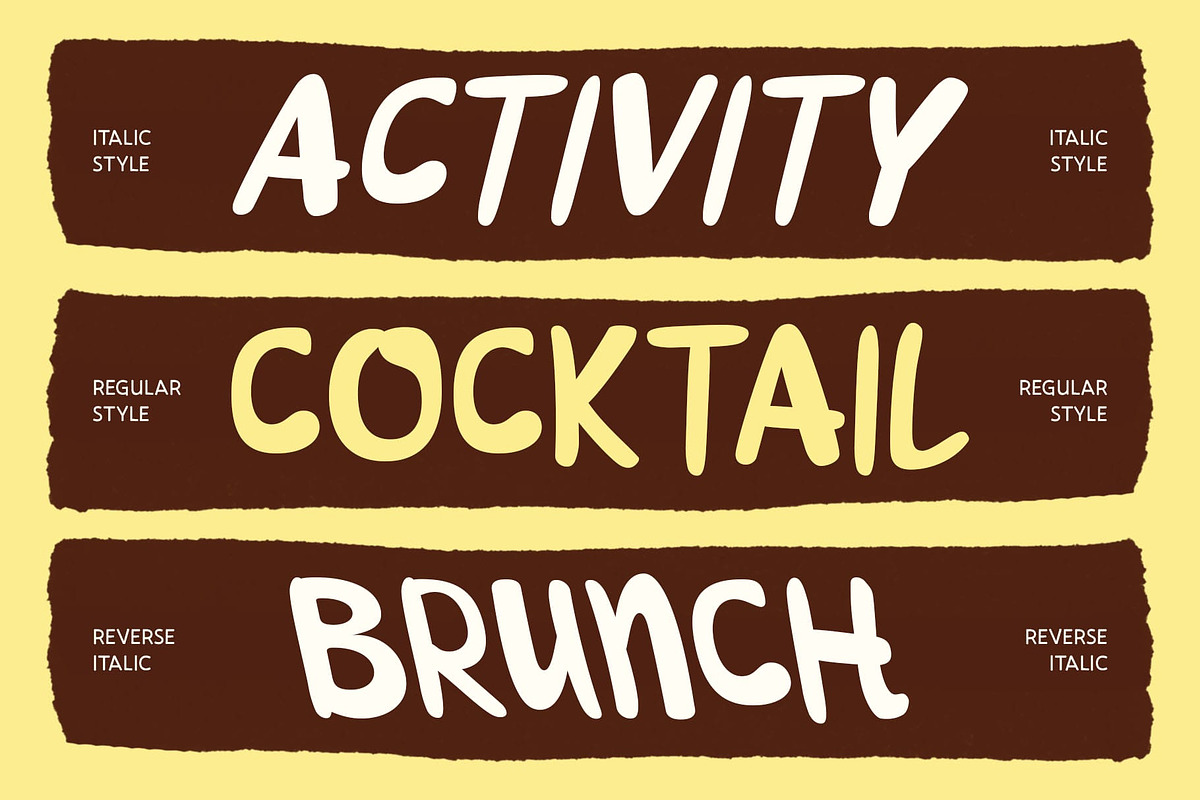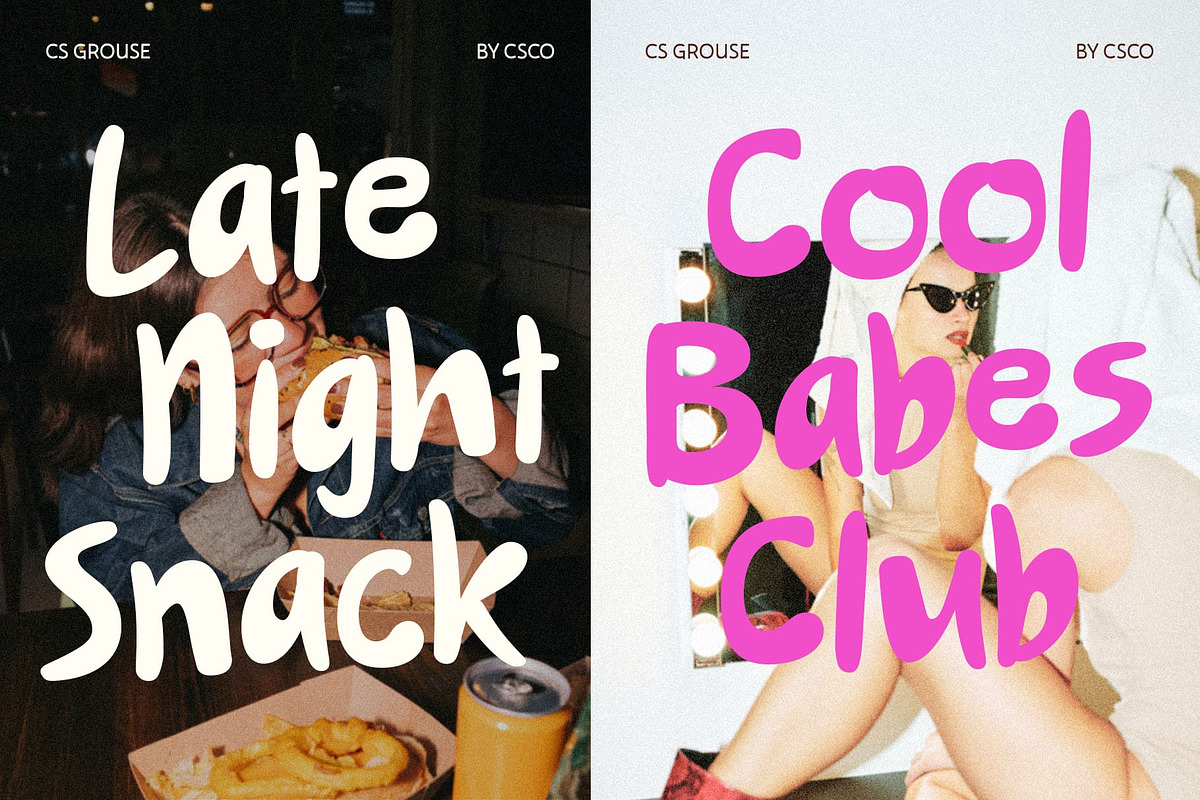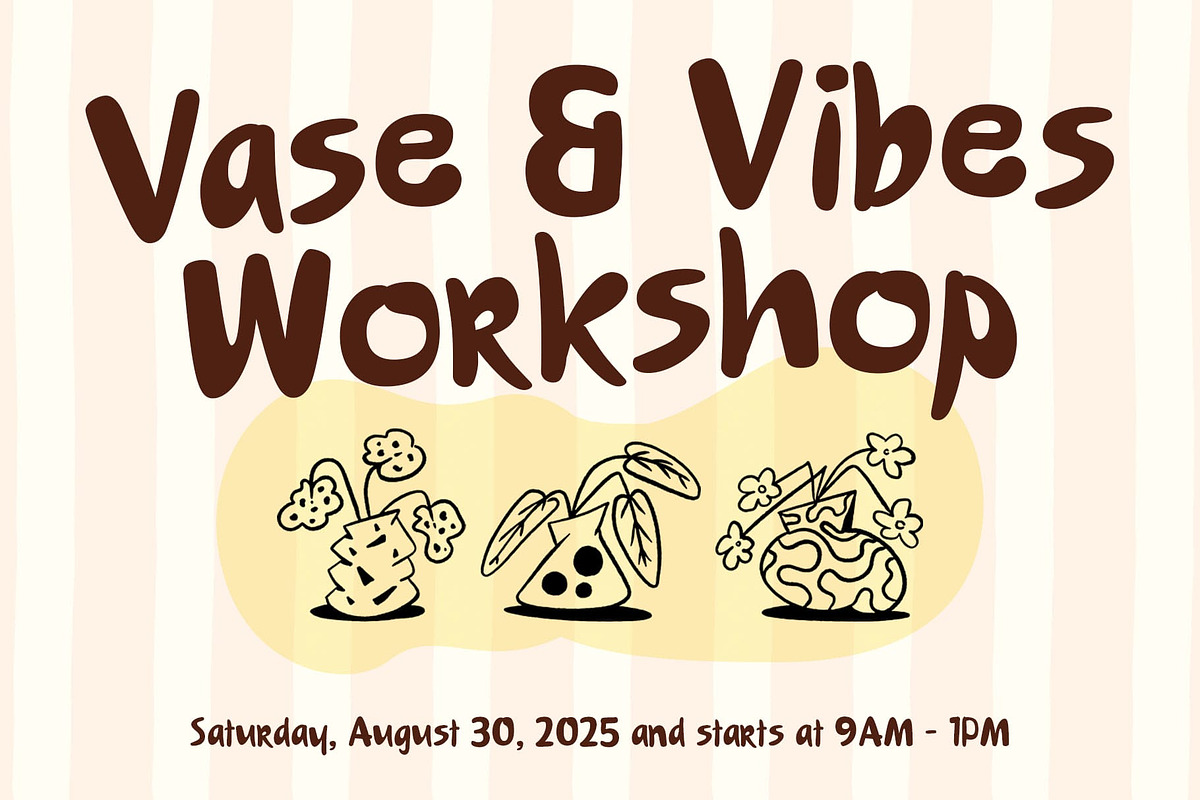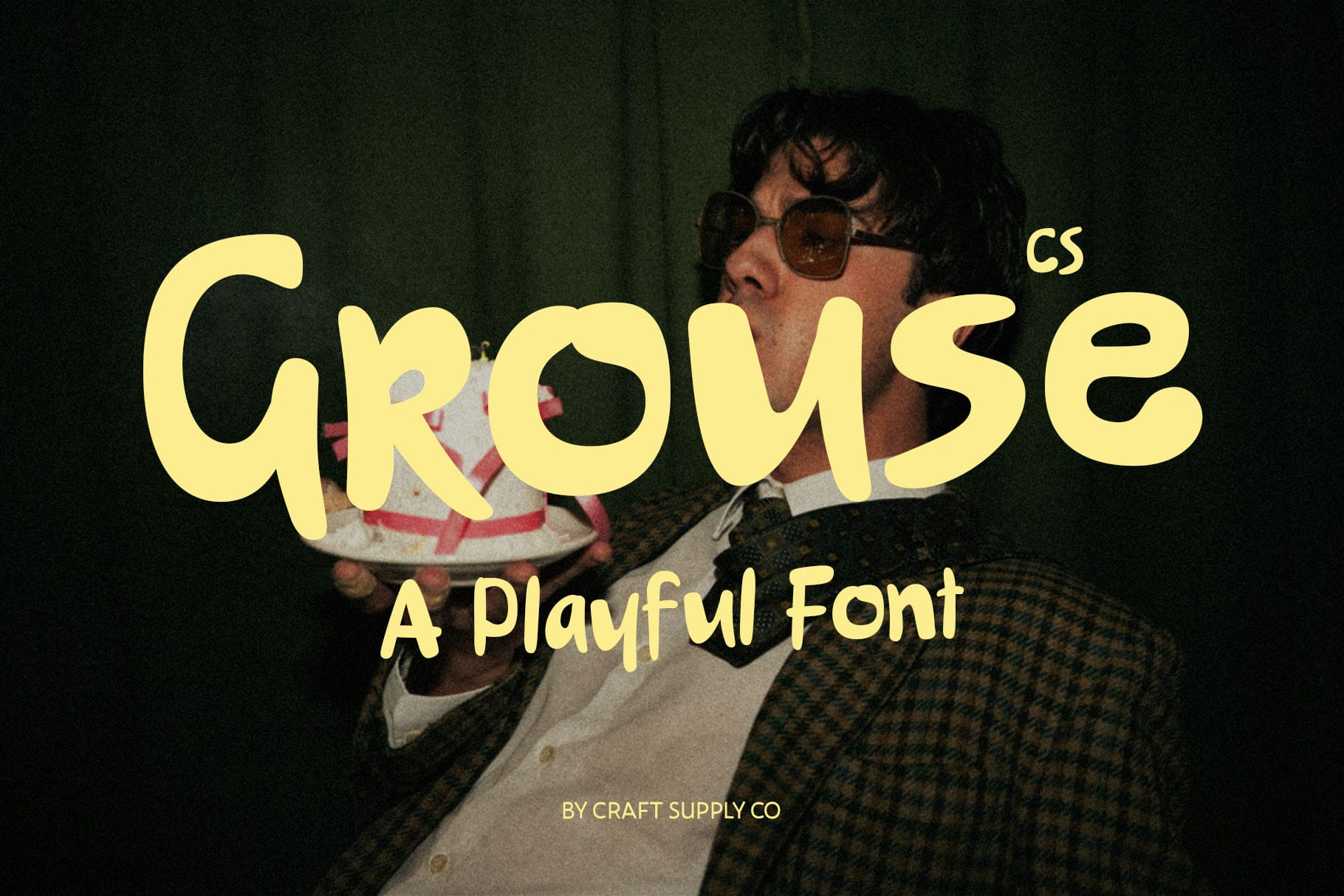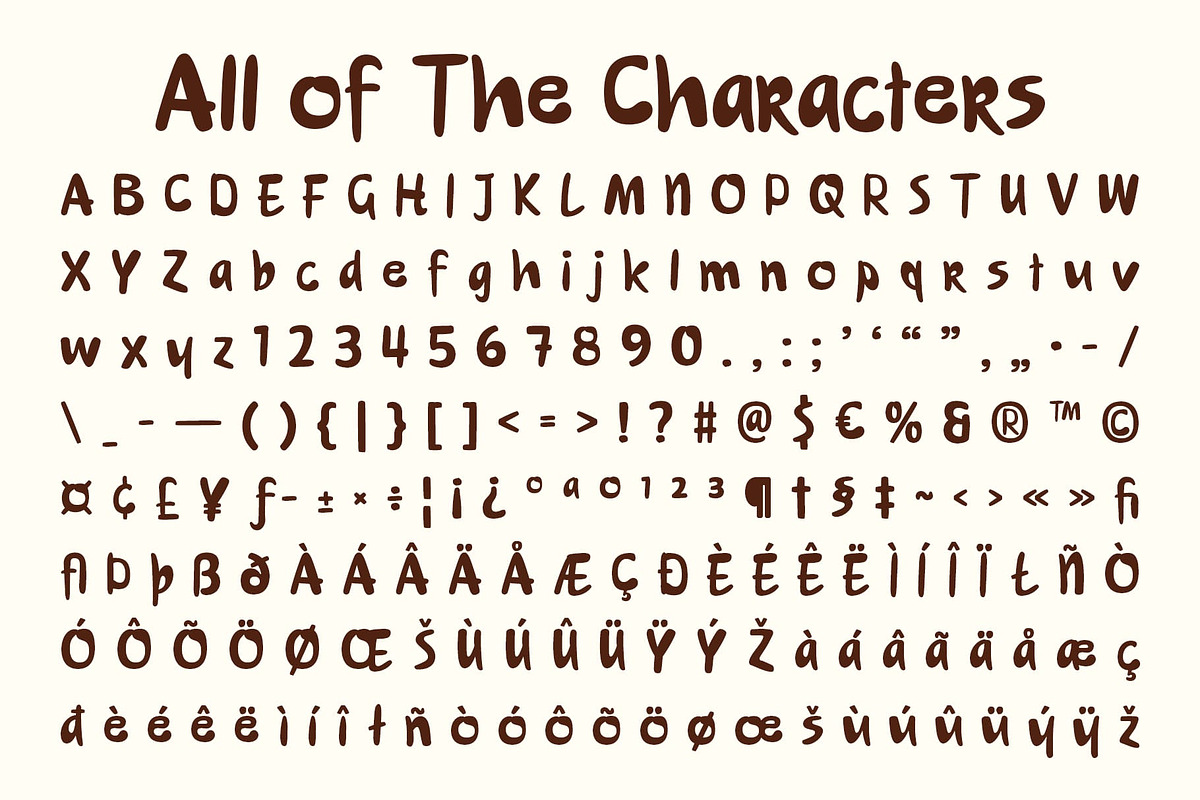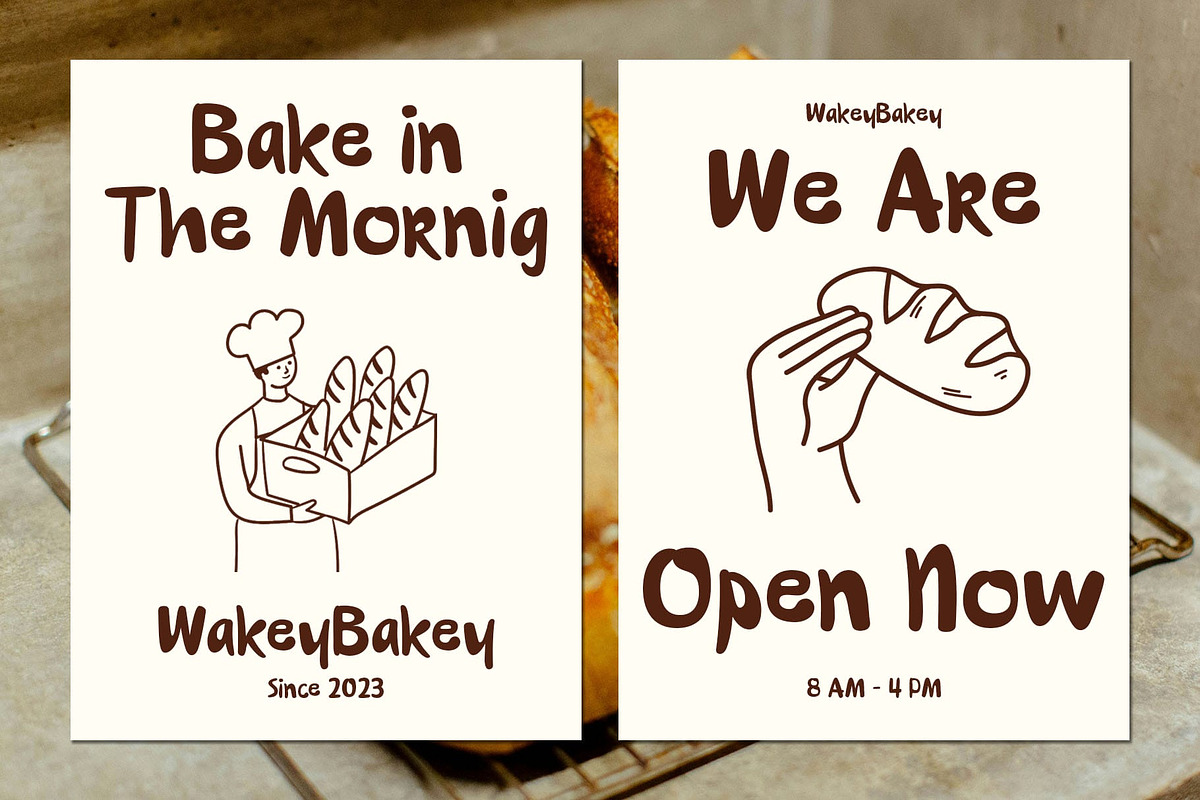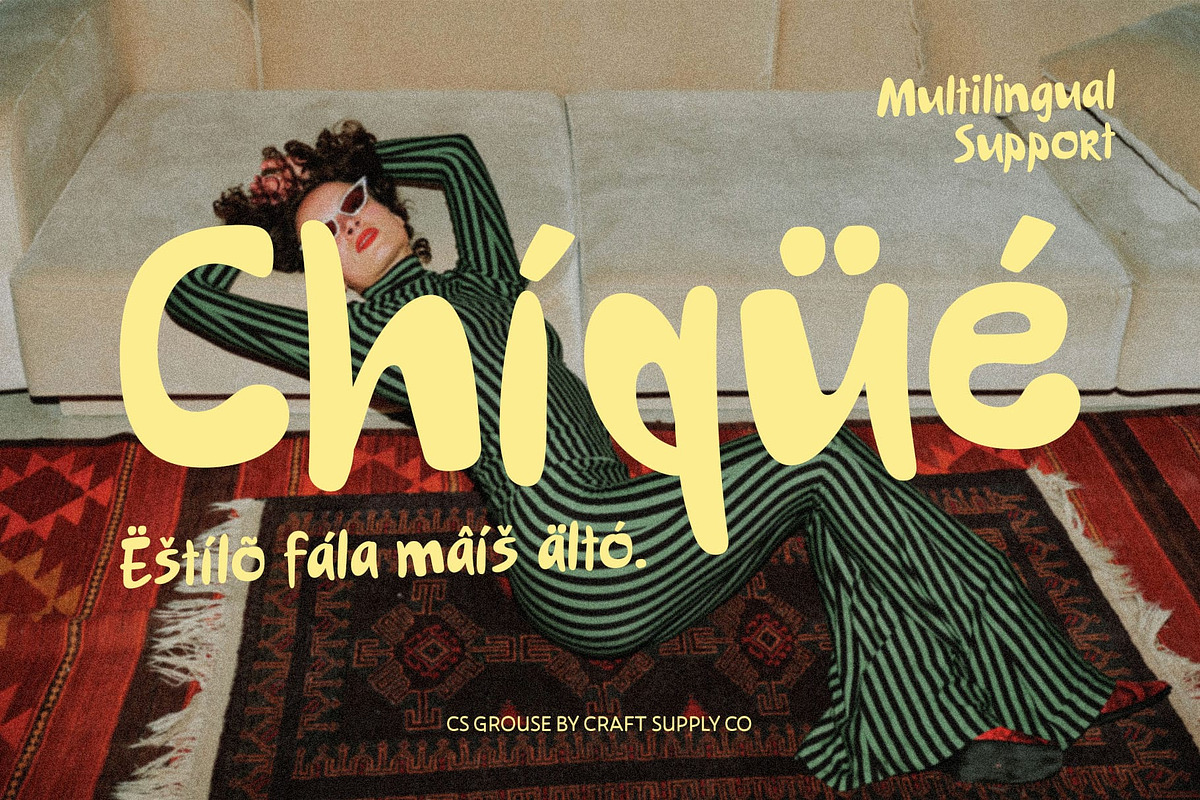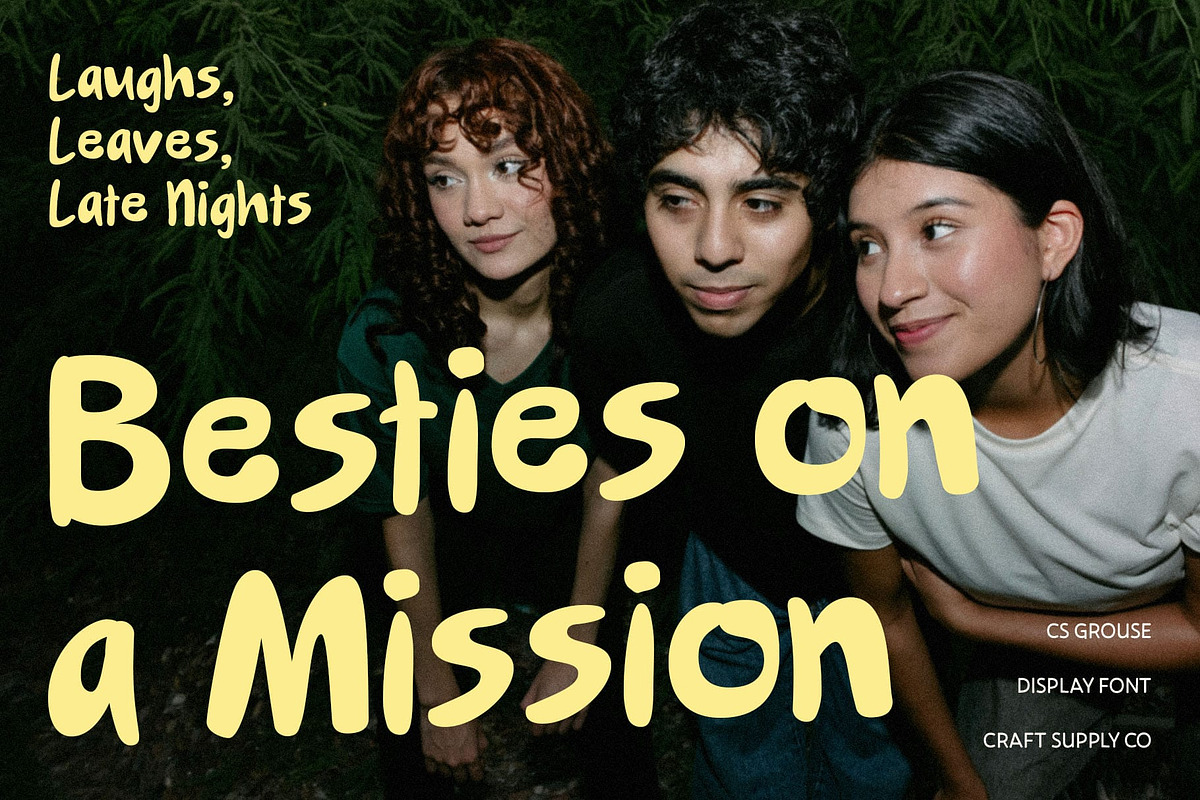
CS Grouse – Playful Font
CS Grouse – Playful Modern Display Font
Modern Handwritten Style CS Grouse is a modern display font with a unique handwritten style that combines clean, neat letterforms with an approachable flow. Its balanced strokes give a polished yet casual look, making it both stylish and versatile for various design needs.
Playful and Cheerful Vibe Designed to bring energy and joy, this font radiates a lighthearted and cheerful vibe that instantly captures attention. The handwritten essence softens its structure, adding a warm and friendly personality to your designs.
Clean Yet Expressive Shapes Every character is crafted with clarity and expression in mind. The design ensures readability while preserving a playful rhythm, striking a perfect balance between order, spontaneity, and modern aesthetics. This balance allows CS Grouse to remain highly readable without sacrificing its creative personality, making it suitable for both display purposes and standout branding.
Perfect for Creative Projects CS Grouse works beautifully in titles, posters, branding, packaging, social media graphics, and event materials. Its charming and full-of-character look makes it ideal for projects aiming to highlight creativity, fun, and originality.
Fresh, Friendly, and Memorable Blending modern design with handwritten charm, CS Grouse delivers a fun, approachable, and stylish presence. Whether you’re crafting a cheerful brand identity or designing eye-catching promotional visuals, this font ensures a fresh and memorable impression every time.
- CS Grouse Regular
- CS Grouse Italic
- CS Grouse Reverse Italic